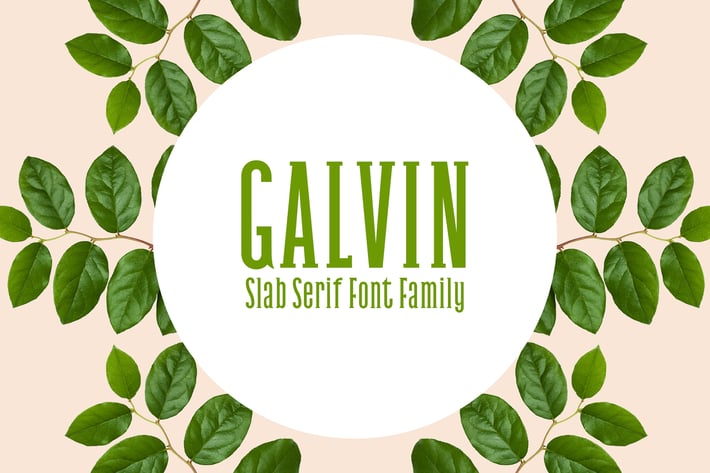
Galvin Slab Serif Font Family Pack
Galvin is a unique slab serif font that is perfect for quotes, invitations, badges, labels, packaging design, blog, websites, designs, banners, apparel, greeting cards, wedding invitation, headlines, posters, banners, apparel, packaging, logos or magazines just to name a few.
Included Features:
- Font Weight: Regular, Thin, Thin Italic, Light, Light Italic, Outline, Bold and Bold Italic
Galvin Font Features:
- Uppercase Multilingual Letters
- Lowercase Multilingual Letters
- Non English Characters ( Latin Supplement + Latin Extended A)